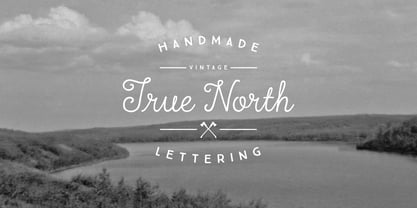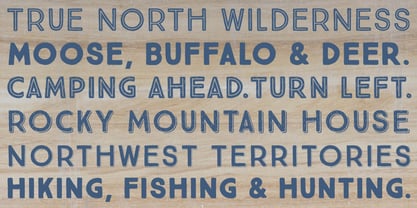
True North
by Cultivated Mind
About True North Font Family
True North is a vintage inspired typeface with 16 styles and a monoline script. True North comes with labels, extras and free banners. Extras include wild animals, catchwords, numbers, symbols, tools, maple leaves and trees. True North is a headline font with alternate capitals. Combine all 16 styles with the script, banners, labels and extras and you get a wonderful vintage design. True North Script is a playful, fully-connected monoline script full of ligatures and alternate forms. Its wide range of international characters and alternate use of the power of OpenType automatically creates the feel of hand-lettering.
About Cultivated Mind
“I think that what makes Cultivated Mind unique is it offers a lot of different styles of handmade typefaces,” says the foundry’s owner and primary designer, Cindy Kinash. “Cultivated Mind doesn’t have one distinct style, as it is constantly evolving and trying to release fonts that you haven’t seen before.” Based in Vancouver, British Columbia, Canada, Cindy started Cultivated Mind in January 2012, after having spent most of her career up until then working as an apparel graphic designer. Her foundry’s first font, Hello I Like You, was released that same month. In just the few years since then, Cindy’s young foundry has produced an astounding 16 typefaces; several of which have topped the Best Sellers list. Luckily, she hasn’t had to do all of that work alone. Finding inspiration in working with other type designers, she collaborated with Charles Gibbons on both Ciao Bella and True North: two of her most successful designs to date. True North has been a bestseller at MyFonts and topped our Hot New Fonts list upon its release in the summer of 2014. Another of Cindy’s most popular fonts is Pacific Northwest: a typeface that, like everything released by the foundry, was created by hand. What makes this font so unique though, is the fact that it was created with the careful strokes of a paintbrush. Cindy says that fans of her foundry have a lot to look forward to in the future, including more collaborations with other talented type designers and lettering artists. “Cultivated Mind will produce a new variety of fonts you haven’t seen before,” she says. “We will offer fonts with more alternate letters so that customers can create their own unique hand lettered look.”